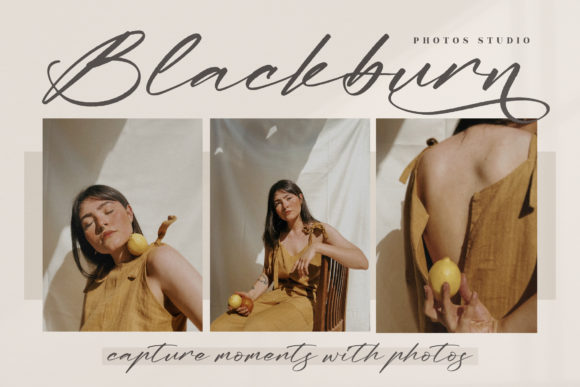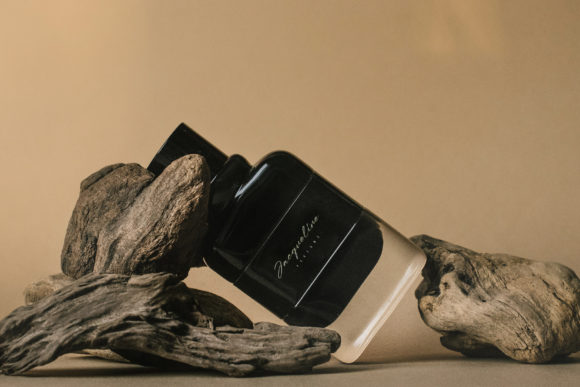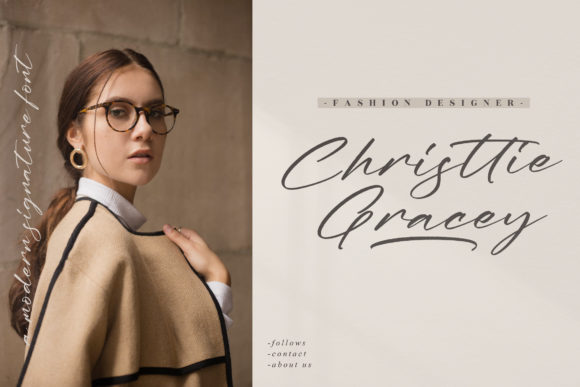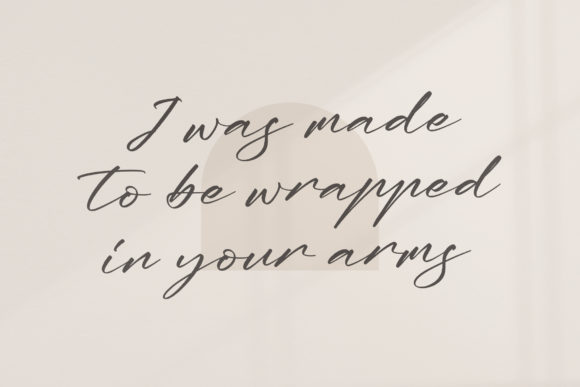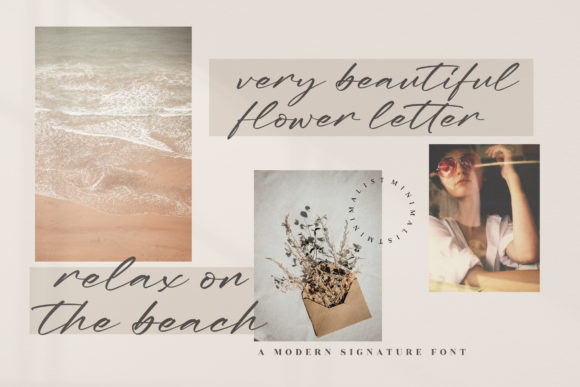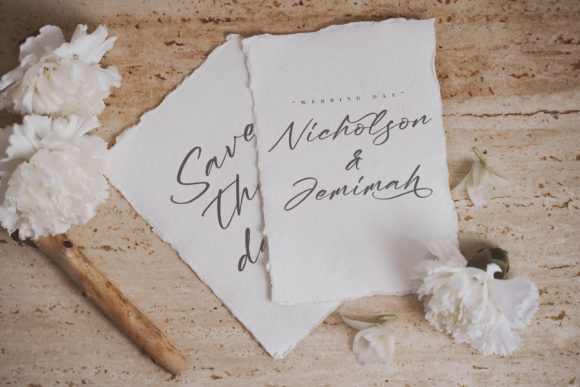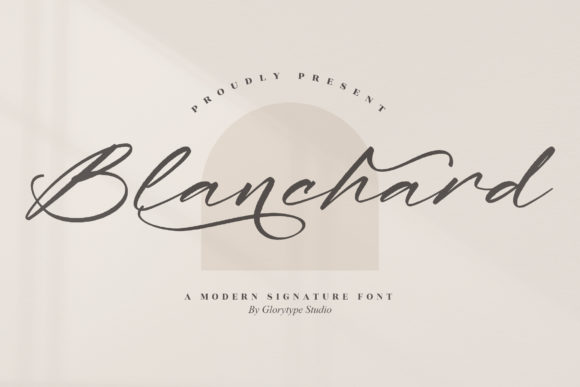
Blanchard Font: Elevate Your Designs with Elegant Handwritten Style
Are you tired of using the same old fonts in your designs? Do you want to add a touch of elegance and sophistication to your projects? Look no further than the Blanchard Font, a stunning signature font that exudes style and refinement. With its unique blend of curves, swashes, lines, and more, Blanchard is the perfect choice for designers and crafters looking to elevate their work.
The Characteristics of Blanchard Font
Blanchard Font is a true showstopper, with a stylish handwritten feel that’s full of character. The balance in every word is truly extraordinary, making it perfect for a wide range of design applications. Here are just a few of the key characteristics that set Blanchard apart:
• Curves and Swashes: Blanchard Font features beautiful, flowing curves and swashes that add a touch of elegance to any design.
• Handwritten Feel: With its unique, handwritten style, Blanchard Font brings a personal touch to your designs, making them feel more approachable and relatable.
• Lines and Flourishes: The font features a range of lines and flourishes that add visual interest and depth to your designs.
• Extraordinary Balance: The balance in every word is truly exceptional, making Blanchard Font perfect for use in titles, headings, and other design elements.
Why Designers and Crafters Love Blanchard Font
So why do designers and crafters love Blanchard Font? Here are just a few reasons:
• Versatility: Blanchard Font can be used in a wide range of design applications, from branding and packaging to wedding invitations and other stationery.
• Elegance: The font’s elegant, refined style makes it perfect for designs that require a touch of sophistication.
• Uniqueness: With its unique blend of curves, swashes, and lines, Blanchard Font is sure to make your designs stand out from the crowd.
Tips for Using Blanchard Font in Your Designs
Here are a few tips for using Blanchard Font in your designs:
• Use it as a Title Font: Blanchard Font is perfect for use in titles and headings, where its elegant style can really shine.
• Pair it with Other Fonts: Blanchard Font pairs beautifully with other fonts, making it easy to create visually interesting and dynamic designs.
• Experiment with Colors: Blanchard Font looks great in a range of colors, so don’t be afraid to experiment and find the perfect hue for your design.
• Use it in Digital and Print Designs: Blanchard Font can be used in both digital and print designs, making it a versatile addition to your font library.
In conclusion, Blanchard Font is a stunning signature font that’s perfect for designers and crafters looking to elevate their work. With its unique blend of curves, swashes, lines, and more, Blanchard is sure to add a touch of elegance and sophistication to any design. Whether you’re working on a branding project, a wedding invitation, or any other design application, Blanchard Font is a great choice. So why not give it a try and see the difference it can make in your designs?